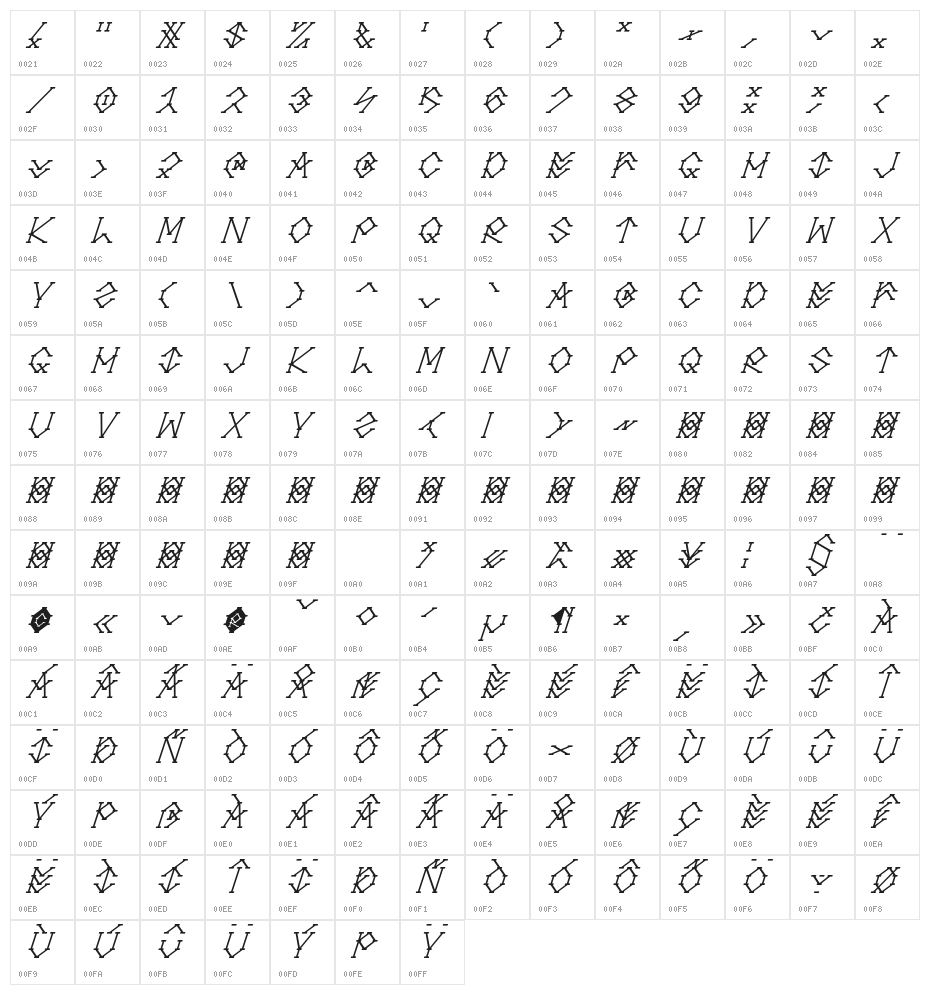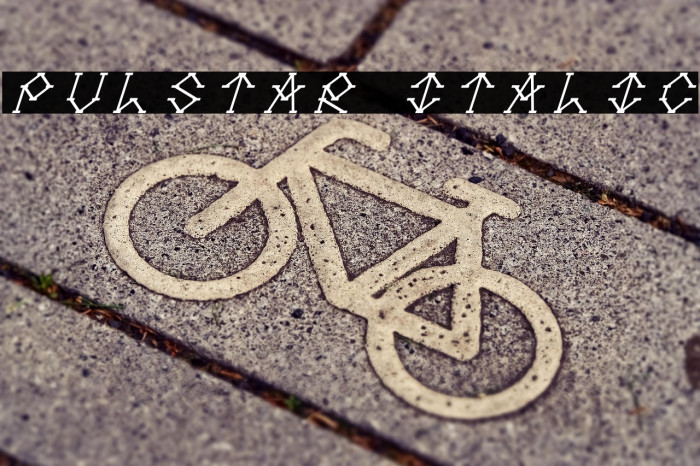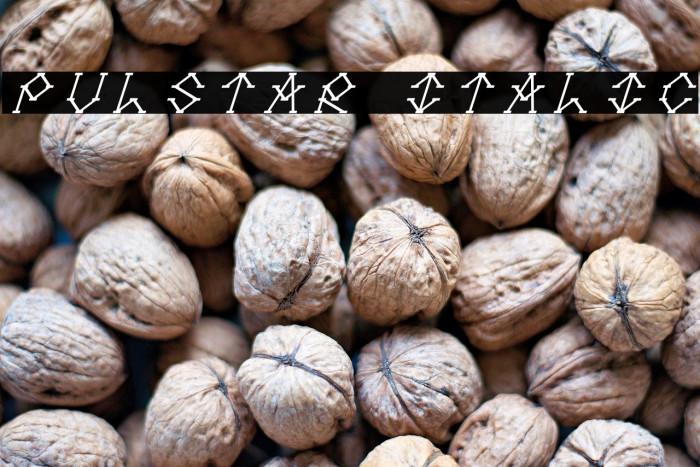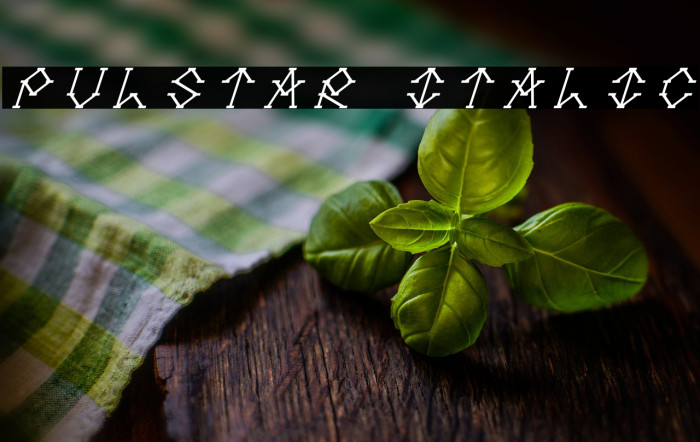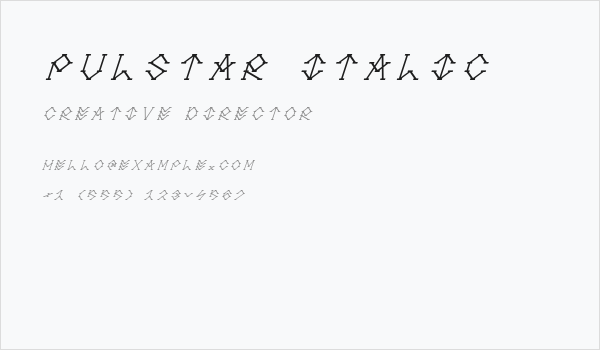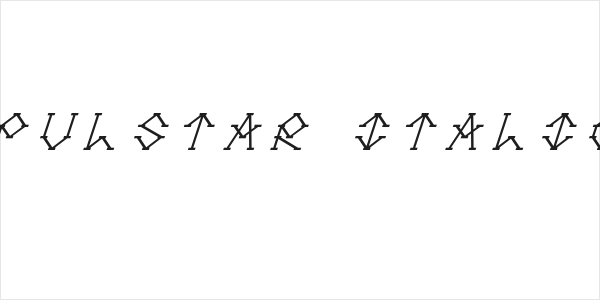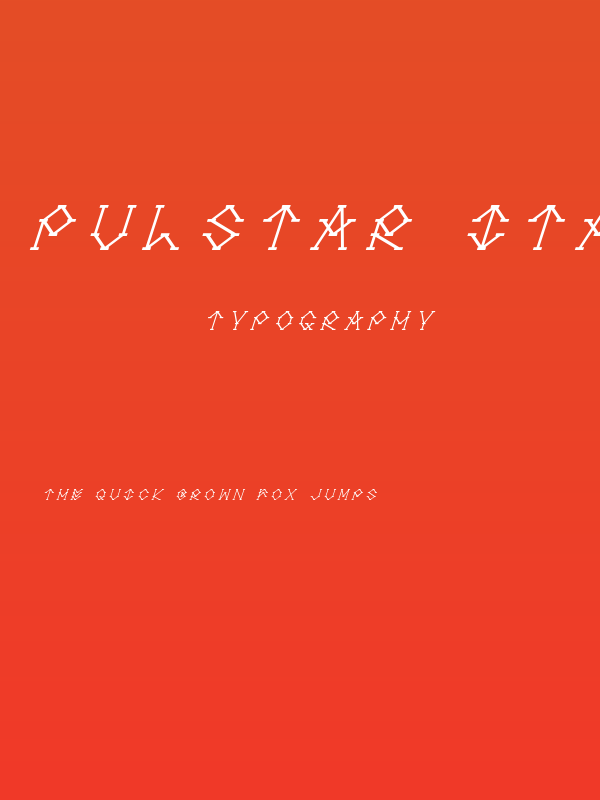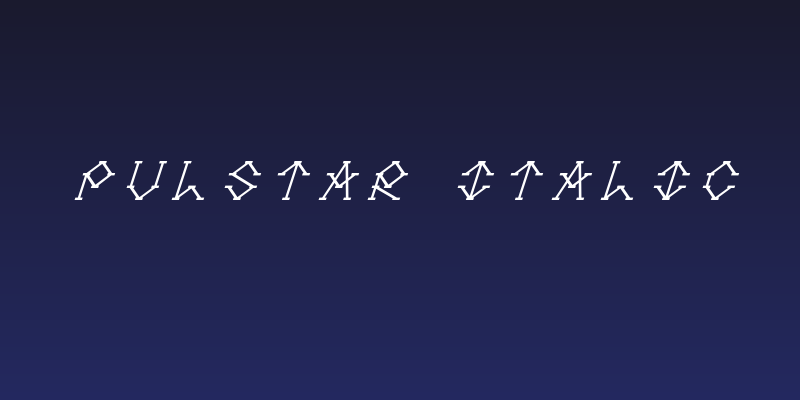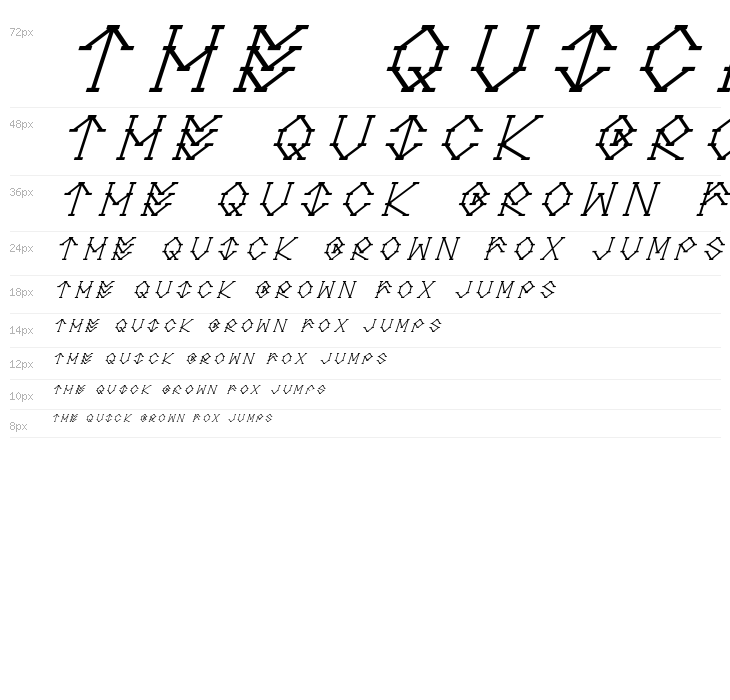
Pulstar Italic Font
Pulstar Italic Description
This font features a futuristic and angular design, characterized by sharp edges and geometric shapes. The letters are constructed with a series of interconnected lines and angles, giving it a dynamic and energetic appearance. The uppercase and lowercase letters maintain a consistent style, with each character exhibiting a unique, almost mechanical structure. The numerals and special characters follow the same design principles, ensuring uniformity across the entire typeface. This font's distinct style makes it stand out, suitable for projects that require a modern and edgy look.
| Proposed Projects | Ideal for sci-fi themed projects, video game titles, tech branding, and futuristic posters. |